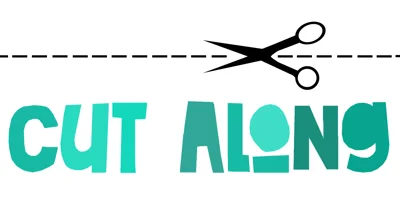
Cut Along Font
Cut Along Font is perfect for craft project instructions, DIY tutorial materials, educational worksheets, children's activity books, scrapbooking designs, handmade product packaging, creative workshop materials, paper craft templates, interactive learning resources, and hands-on applications that encourage creativity and manual engagement through step-by-step guidance.
What makes Cut Along Font truly exciting is its perfect embodiment of hands-on creativity and instructional clarity that guides users through craft projects with precision and encouraging simplicity. This exceptional typeface captures the essence of DIY culture with its clear, instructional letterforms and practical character that convey both creative inspiration and methodical guidance. The font's crafty personality and instructional reliability make it perfect for brands and projects that empower people to create, learn, and engage with materials through tactile experiences and creative problem-solving.
The Cut Along Font family includes multiple weights and styles: Regular, Bold, Light, Dashed, and Stencil variations designed for optimal instructional communication. Each family member maintains the distinctive craft-focused character while offering flexibility for diverse educational applications and creative branding systems. The comprehensive character set supports instructional typography needs and craft design elements, making it suitable for international DIY communications.
When you choose Cut Along Font, you're selecting a typography tool that transforms complex instructions into clear, actionable guidance for creative projects. This instructional typeface excels in applications where clarity and hands-on engagement are essential, delivering exceptional educational value while encouraging creative exploration. Whether you're designing craft tutorials, educational materials, DIY brands, or interactive learning resources, this font provides the instructional excellence and creative encouragement that resonates with makers, learners, and creative enthusiasts who appreciate clear guidance and hands-on creative experiences.